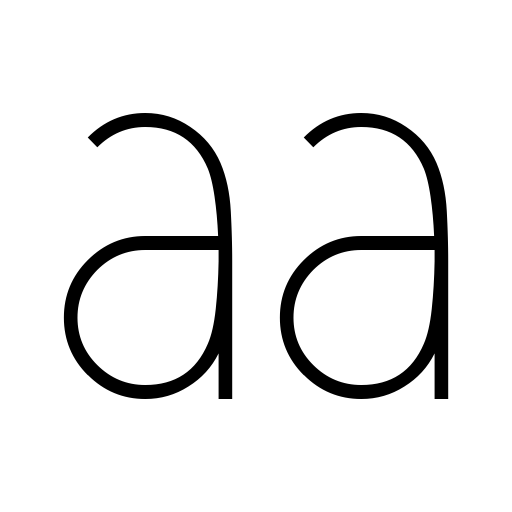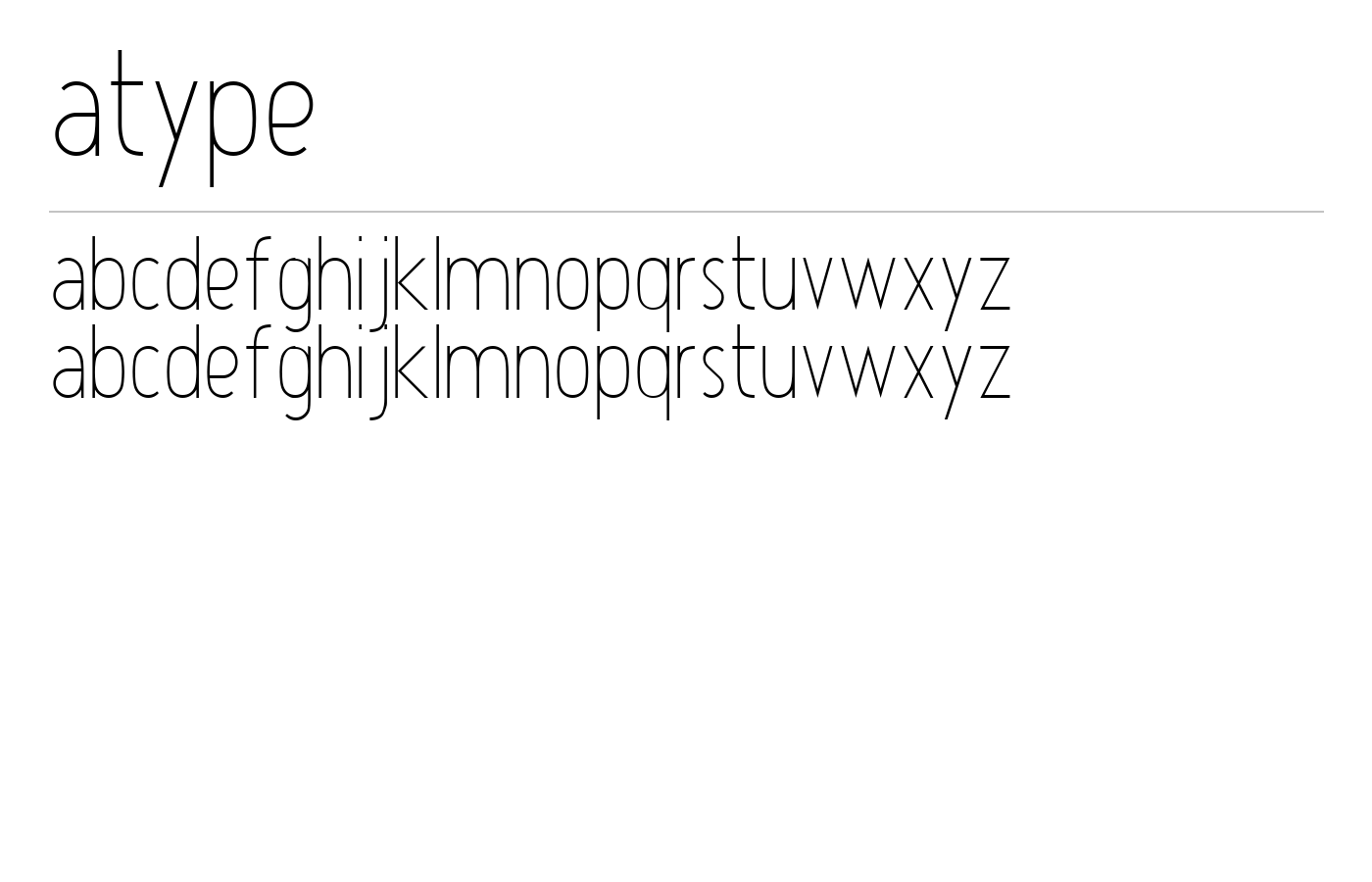
Atype 1 is a slender, modern sans serif font characterized by its tall, narrow letterforms and consistent light stroke weight. Its minimalist design and high x-height create a clean, professional look that works well for contemporary branding, editorial use, and digital interfaces where clarity and elegance are needed. This font’s sleek and airy style makes it ideal for headlines and logos that seek a refined, understated futuristic feel.
Atype 1 Font
About Atype 1 Font
| Font family | Atype 1 Font |
| Designer | Salvo Nicolosi |